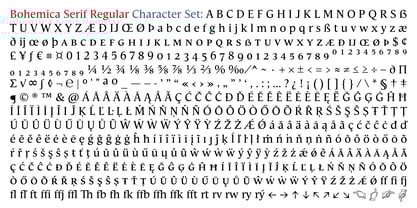
Bohemica™
by Storm Type Foundry
The Bohemica Font Family was designed by František Štorm and published by Storm Type Foundry. Bohemica contains 1 styles.
Bohemica is a typeface created as part of a larger typeface project. It is based on a humanistic Renaissance antique style, which is characterized by a pleasant contrast of the drawing. The font includes basic OpenType features such as small caps, ligatures and complete Western and Eastern European diacritics, as well as nine other numerals and orientation system characters. It is suitable for book typesetting and corporate identity.
Designers: František Štorm
Publisher: Storm Type Foundry
Foundry: Storm Type Foundry
Design Owner: Storm Type Foundry